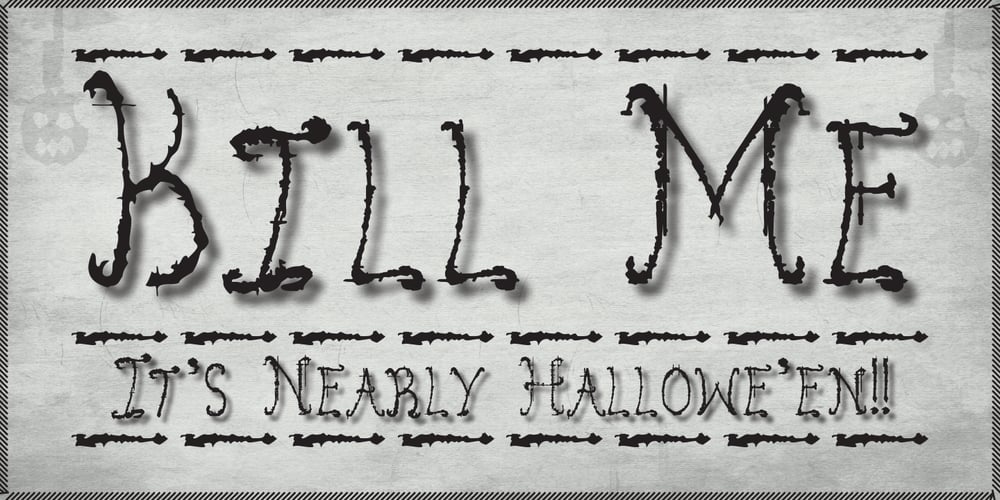
Kill Me
Kill Me font
Kill Me Font Family was designed by Paul Smith and published by Octopi. Kill Me contains 1 styles and family package options. I have terrible and messy handwriting so I thought it would be a good idea to make a twisted version into an horrific font. In that respect I think it is quite successful, plus, Hallowe’en is nigh.